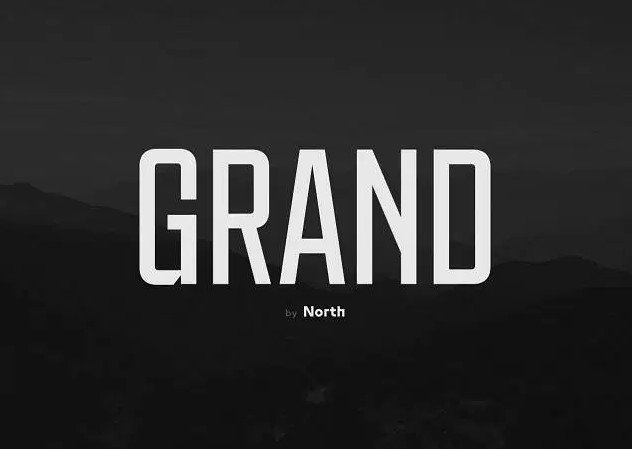
Unveiling Grand Font: the ultimate smooth and sophisticated typeface that will elevate your designs, making them incredibly impressive and distinctive.
It contains excellent features, heaving tons of styles that can be download and use for free to make commercial designs more strong and smart. The typeface comes with a unique look and feel.
You can download this condensed typeface, after using it one time you will be loved this great typeface that has a popular texture, display look and authentic designs.
The Grand Font is the famous and amazing typeface which was product of the combination efforts by NorthType.